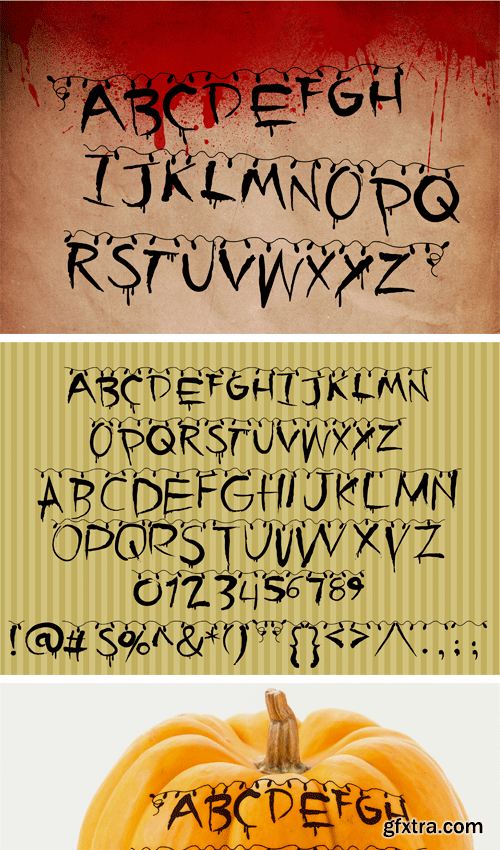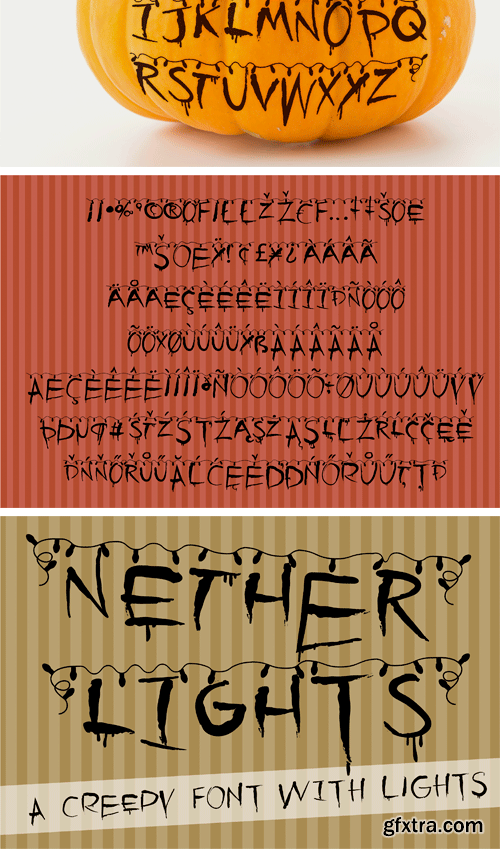
This drippy-paint styled font has rows of Christmas lights above which is reminiscent of a popular T.V. series. The space bar is a row of blank lights and the brackets create "ends".